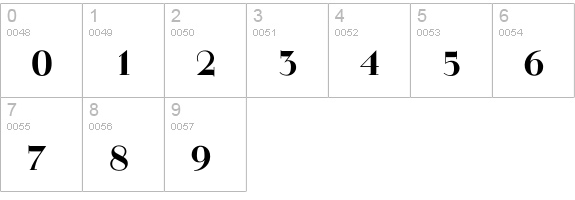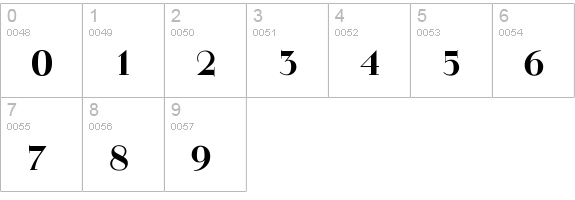
XenonBold Font Details
XenonBold is a striking and modern font that beautifully combines boldness with elegance. Its clean lines and sharp edges make it perfect for making a statement in your designs. With its strong presence and eye-catching appeal, XenonBold is sure to grab attention and leave a lasting impression. The best part? XenonBold is completely free to download at FontsMarket.com. This means you can elevate your projects with this high-quality font without any cost. Whether you're designing a poster, logo, or website, XenonBold will add a touch of sophistication and professionalism to your work. Don't miss out on this fantastic opportunity to enhance your designs with XenonBold - download it today and take your creations to the next level!